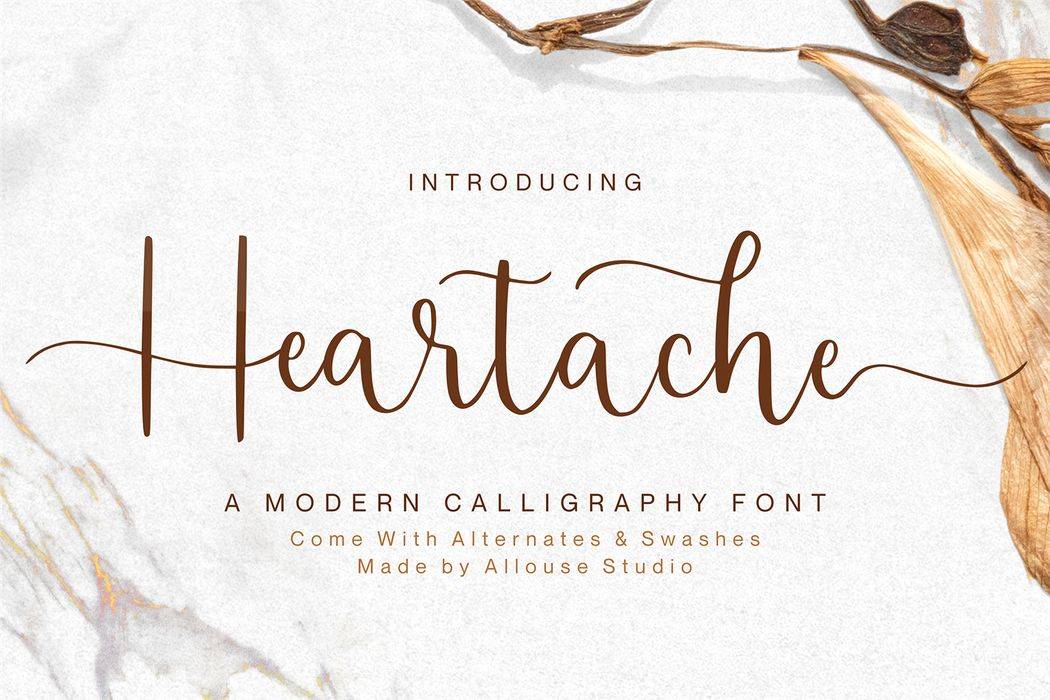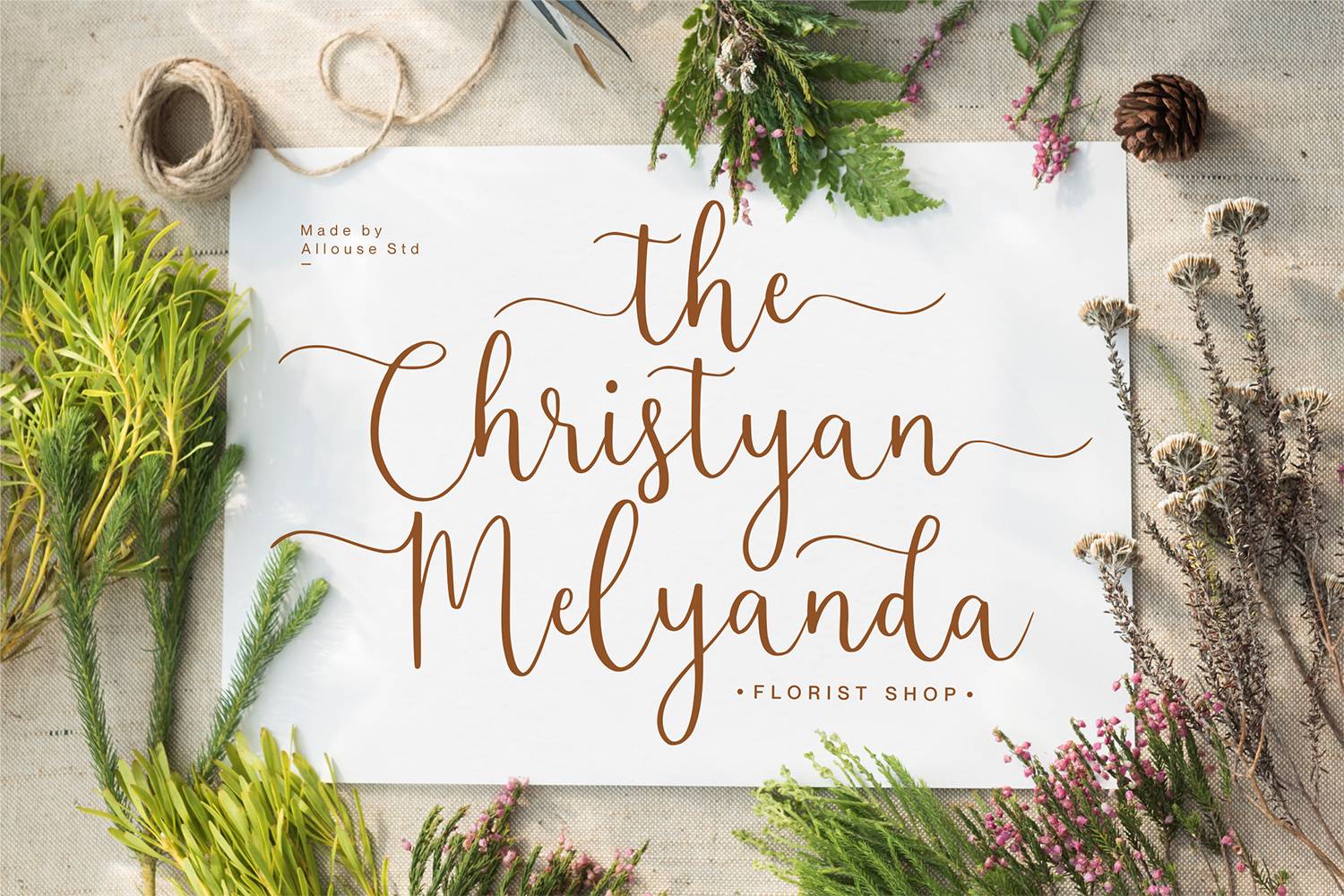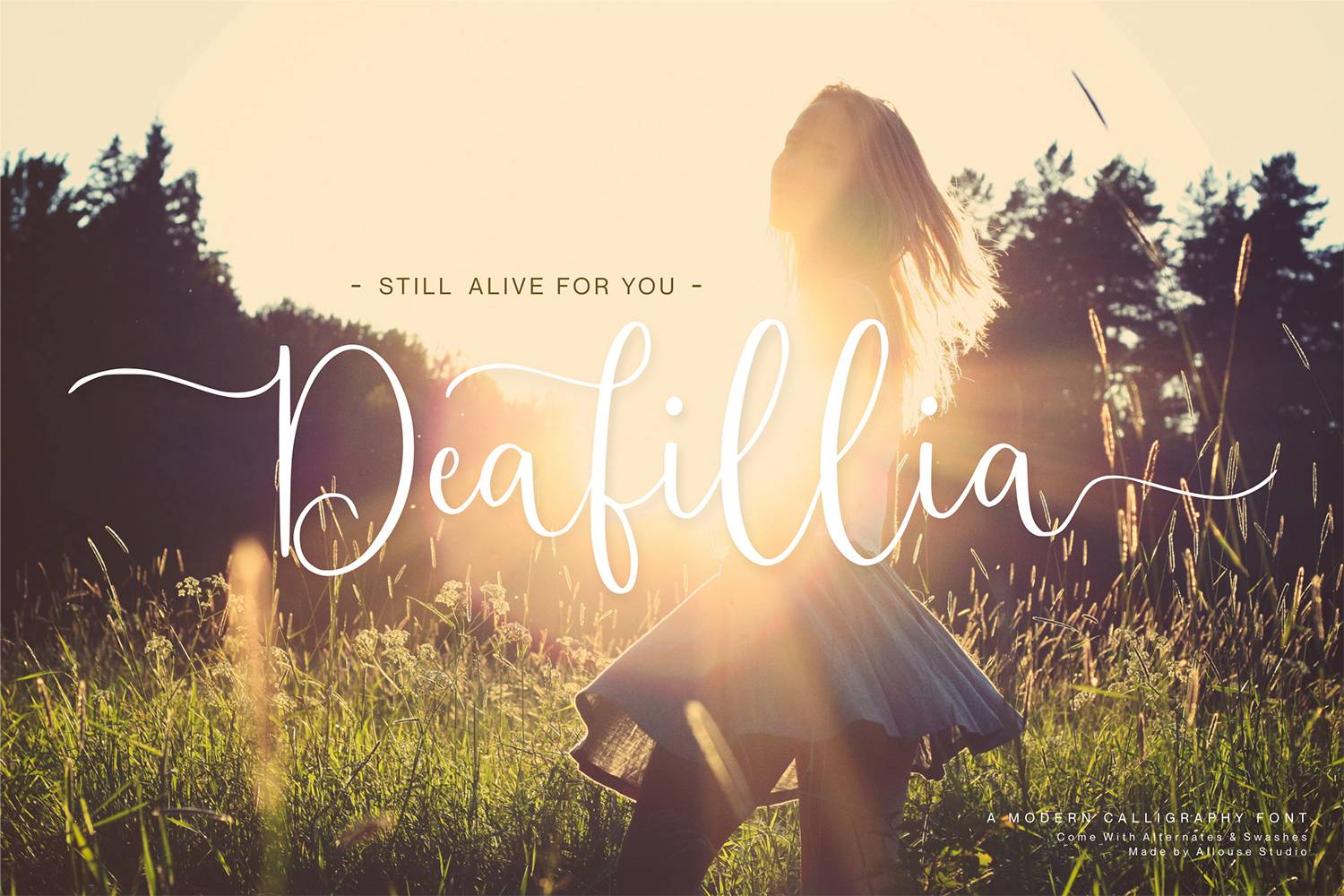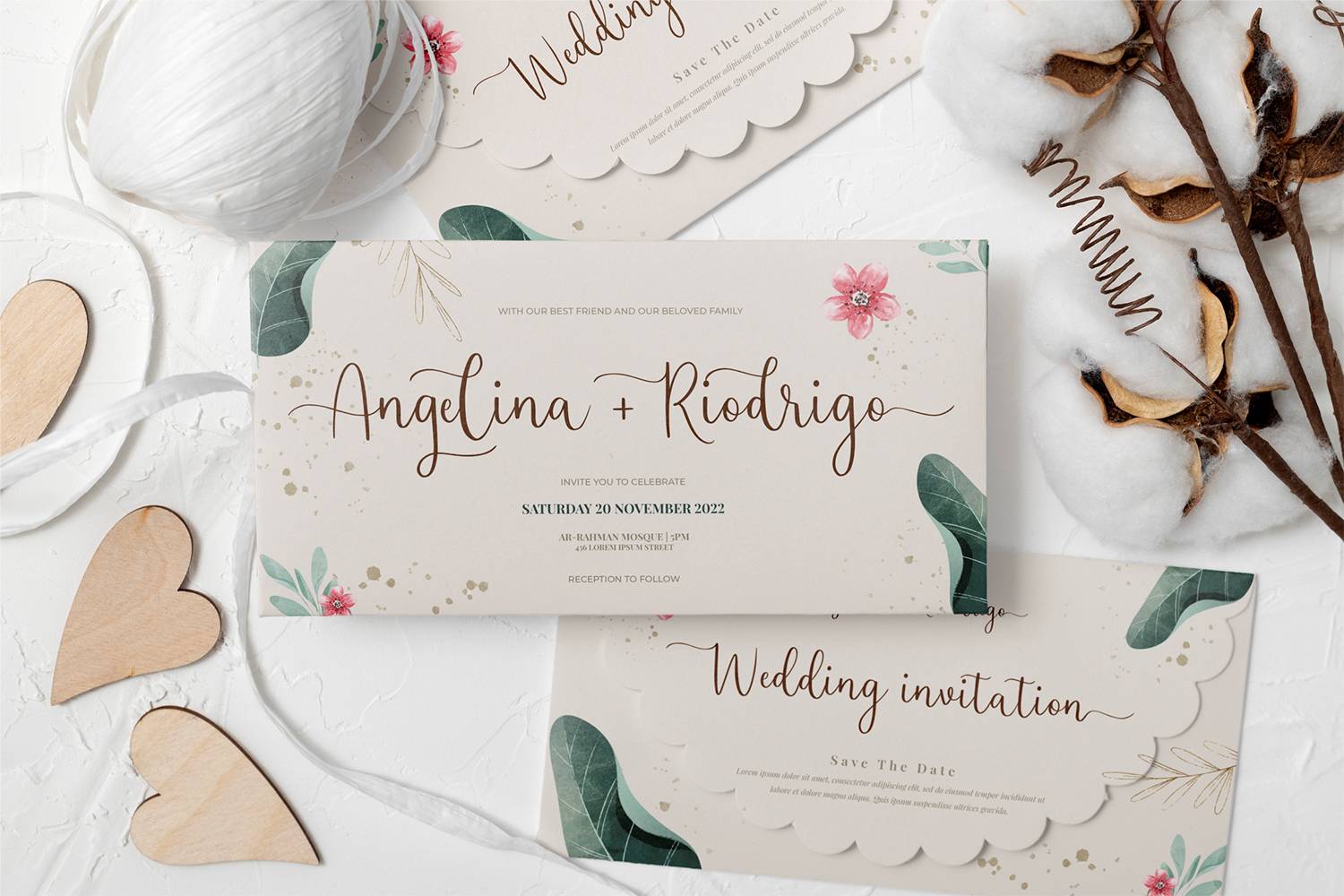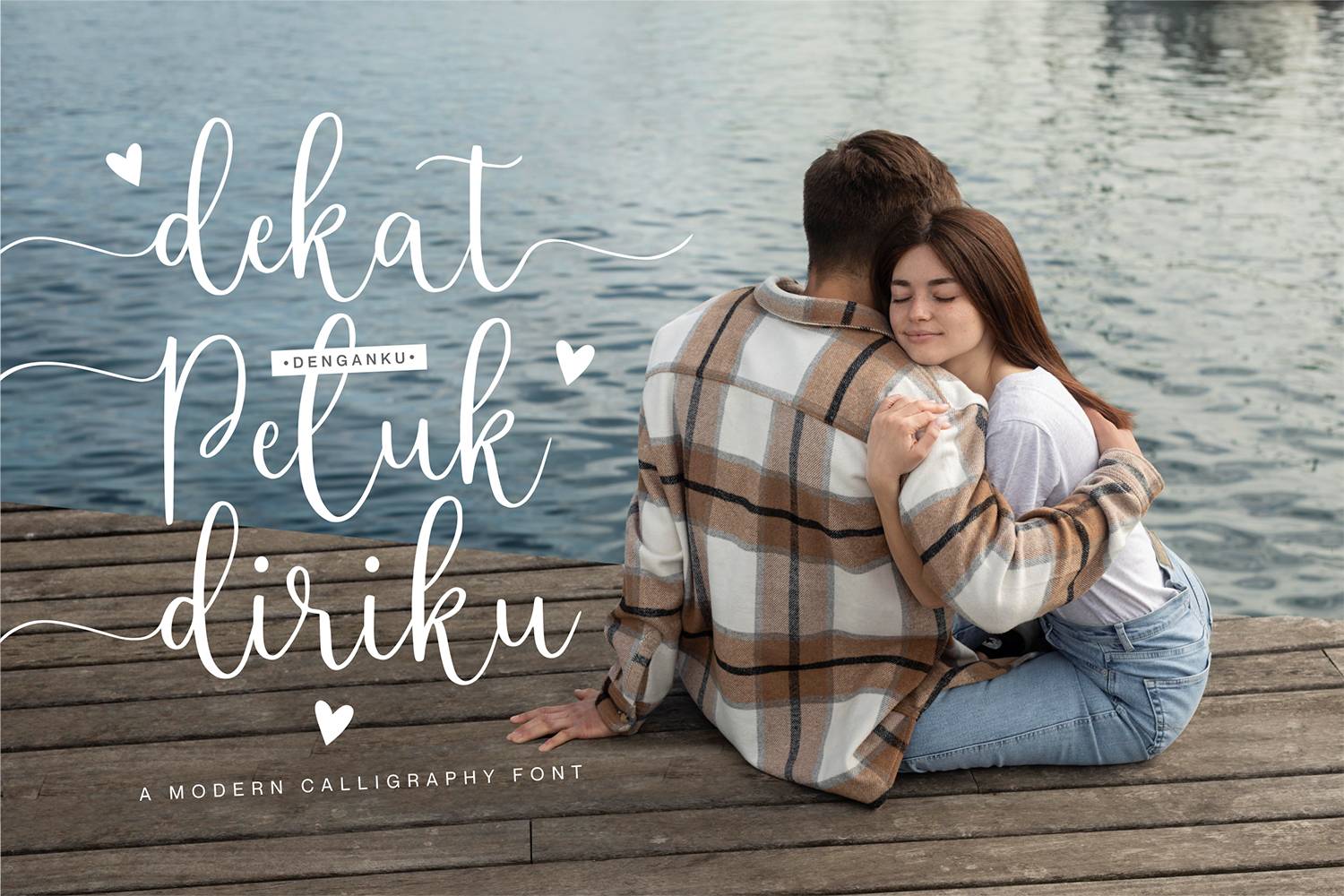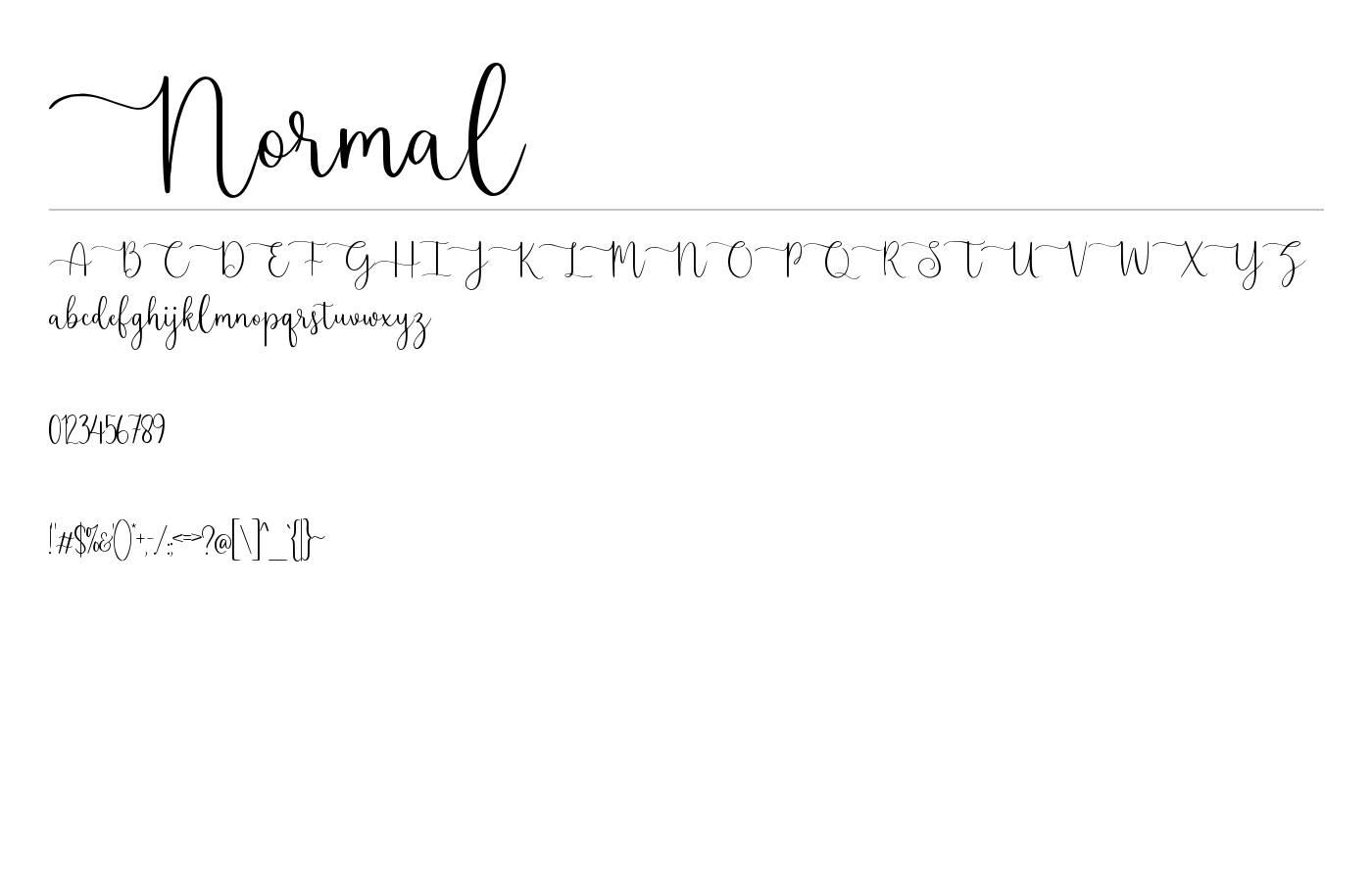
Heartache Font is a delicate, elegant script typeface with thin, flowing strokes and a whimsical touch. Its tall, graceful letterforms and fine contrast create a romantic, hand-drawn feel, making it perfect for wedding invitations, greeting cards, and feminine branding. This font shines in designs that need a soft, stylish, and personal touch.
Heartache Font
About Heartache Font